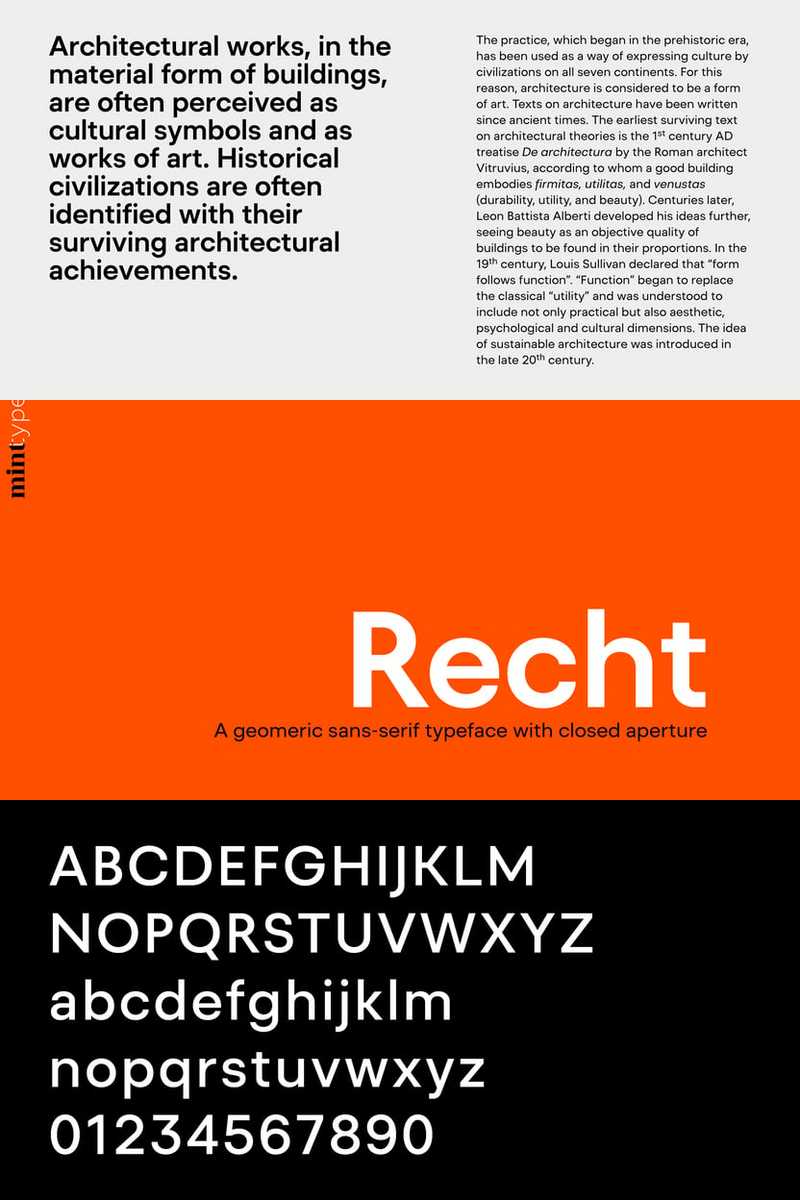
Unlocking Authentic Engagement: How Recht's Playful Energy Transforms Your Social Media Feed and Ignites Connections in Dynamic Editorial Layouts, From Quirky Recipe Blogs to Engaging Digital Zines and Brand Storytelling.
As a social media content creator, you pour your heart into every post, every story, every reel. You know that making an impact isn't just about what you say, but how you say it, how it feels. You've experimented with countless fonts, trying to find that one perfect voice that truly captures your brand's unique spark – something that feels authentic, approachable, and undeniably you.
Imagine a font that winks at you, that practically bounces with enthusiasm, yet remains effortlessly legible. Recht isn't just a typeface; it's a personality. With its friendly curves, lively baselines, and an undeniable sparkle, the Recht font feels like your content is genuinely smiling at your audience. It’s the kind of font that whispers, “Let’s have some fun!” without ever shouting.
That's where Recht font steps in. Think of your audience scrolling through their feed, saturated with content, and then – bam! – their eyes land on your post, instantly drawn in by the magnetic charm of Recht. This font cuts through the noise. It tells a story of joy, creativity, and genuine connection even before they read your first word. Recht transforms flat text into an engaging visual conversation, making your brand feel instantly more relatable, memorable, and full of life. It’s the subtle difference that makes people stop, look, and engage.
Recht font empowers you to inject that much-needed playful energy into every corner of your digital presence. Picture it gracing your Instagram Stories, adding a whimsical touch to your poll questions or creating dynamic, easy-to-read captions for your latest tutorial. Envision it as the inviting title on your next YouTube thumbnail, beckoning viewers to click with its cheerful appeal. See it as the headline for your blog's new recipe post, making healthy eating look like a delightful adventure, or as the expressive text in your next digital zine, bringing every page to life. Whether it’s playful infographics, event announcements, or just adding a spark to your daily affirmation posts, the Recht font adapts, bringing a consistent yet dynamic burst of personality.
Recht: Your brand's playful pulse.